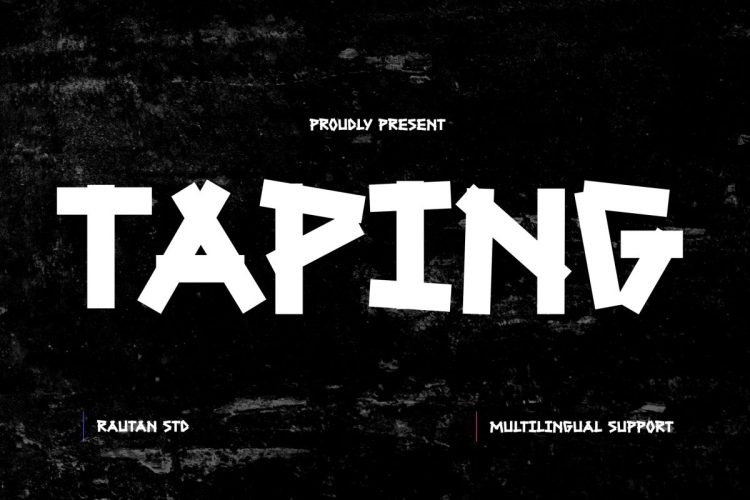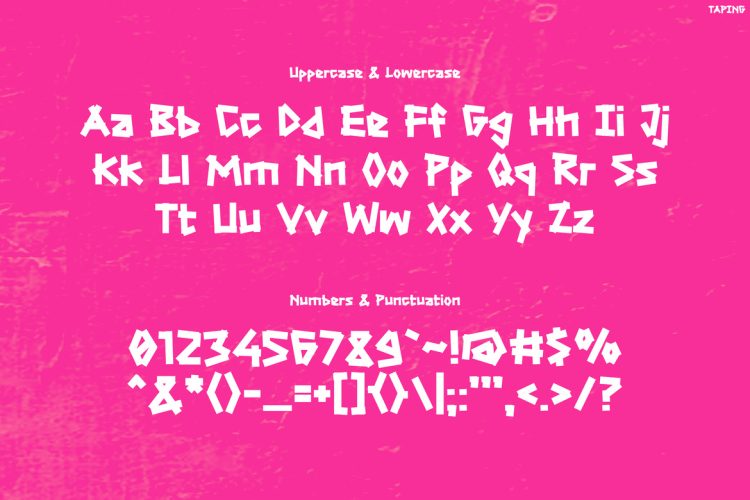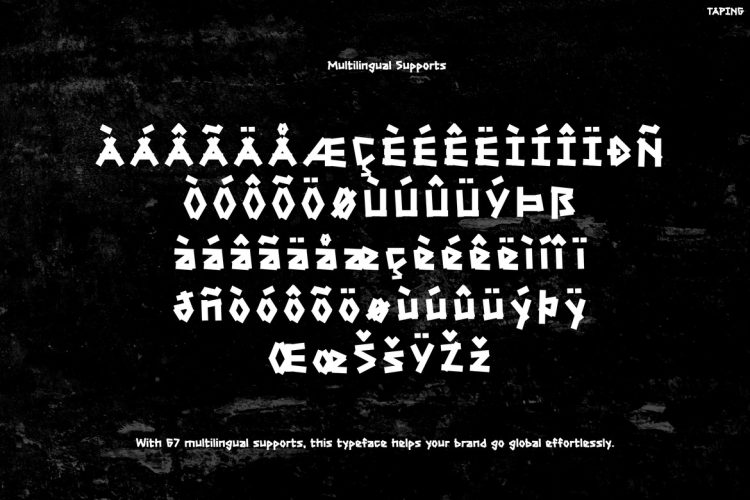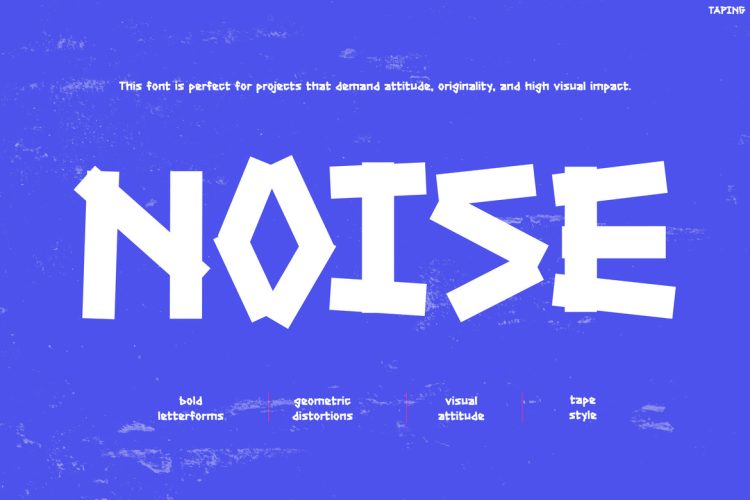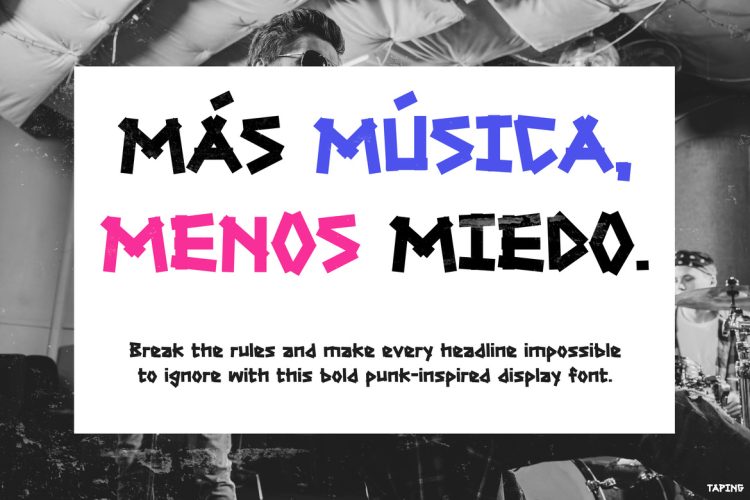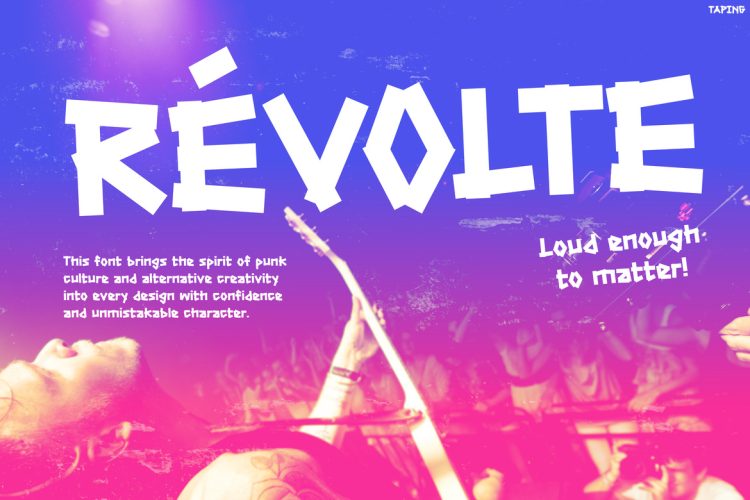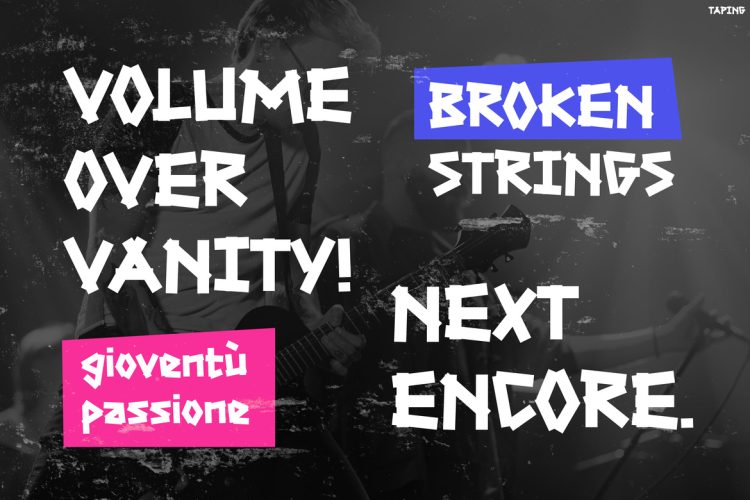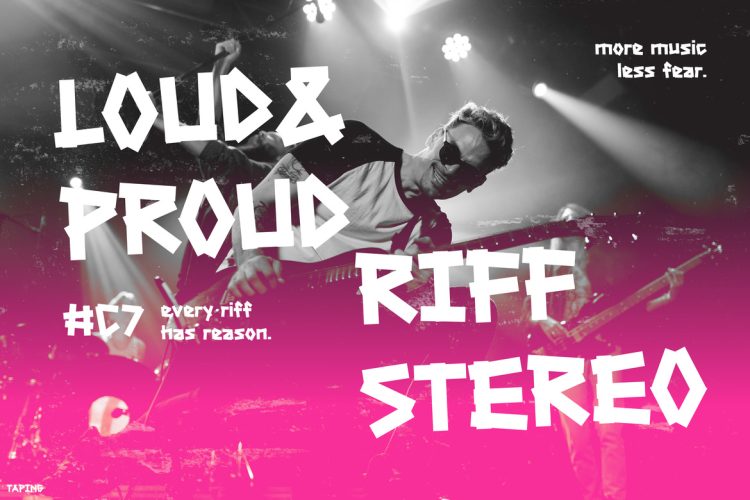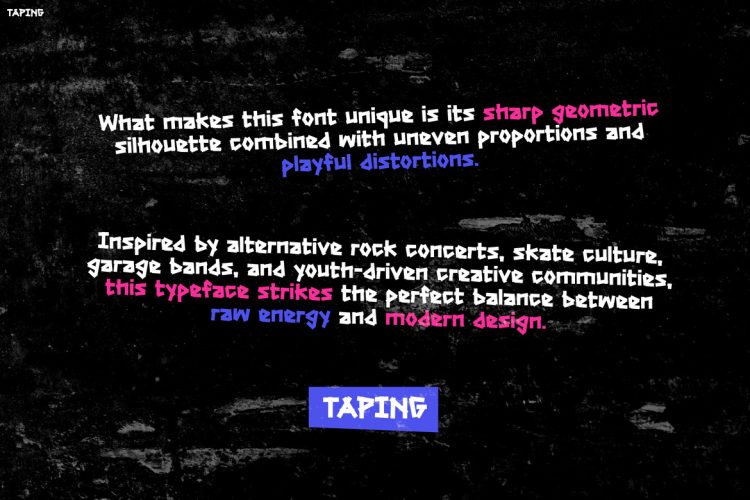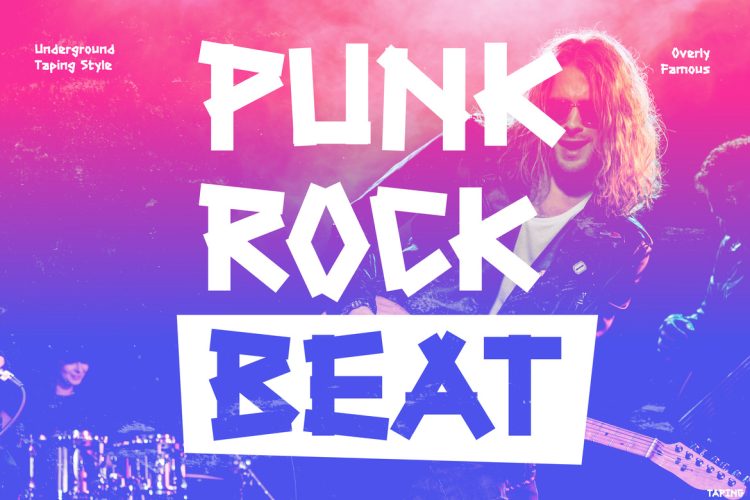
Taping โ Bold Grunge Font for Music, Posters & Street Culture
Instagram Font Taping is a bold grunge display font inspired by underground music, punk culture, and rebellious street art. From the very first glance, its rough geometric shapes create an energetic and handcrafted appearance. Moreover, the distressed texture adds authentic DIY character to every letter. As a result, every headline immediately feels louder and more expressive. At the same time, the bold structure keeps your text easy to read. Furthermore, the unique style helps your designs stand apart from ordinary display fonts. Therefore, Taping is an excellent choice for projects that demand attention.
Why You’ll Love It
Instagram Font Taping is designed for creators who love fearless typography. Not only does it bring bold personality to every design, but it also creates a memorable visual identity. In addition, its rugged style works perfectly for concert posters, album covers, social media graphics, fashion branding, streetwear collections, YouTube thumbnails, merchandise, and event promotions. Likewise, the handcrafted details add authentic street culture vibes. Meanwhile, the bold letterforms remain versatile across both print and digital media. Most importantly, every word feels powerful, creative, and impossible to ignore.
Instagram Font Taping Perfect For
- Music festivals and concert posters
- Punk, rock, and indie branding
- Streetwear and fashion labels
- Album covers and merchandise
- Instagram posts and social media graphics
- YouTube thumbnails and streaming content
- Skateboard and urban lifestyle brands
- Creative posters and promotional campaigns
Turn Up the Volume
If you want your designs to make a fearless statement, Taping is the perfect choice. Furthermore, its raw grunge aesthetic instantly boosts visual impact. At the same time, its versatile style adapts to countless creative projects. Consequently, your branding becomes more memorable and distinctive. Finally, choose Taping today and transform every headline into a bold expression of energy, attitude, and creativity.